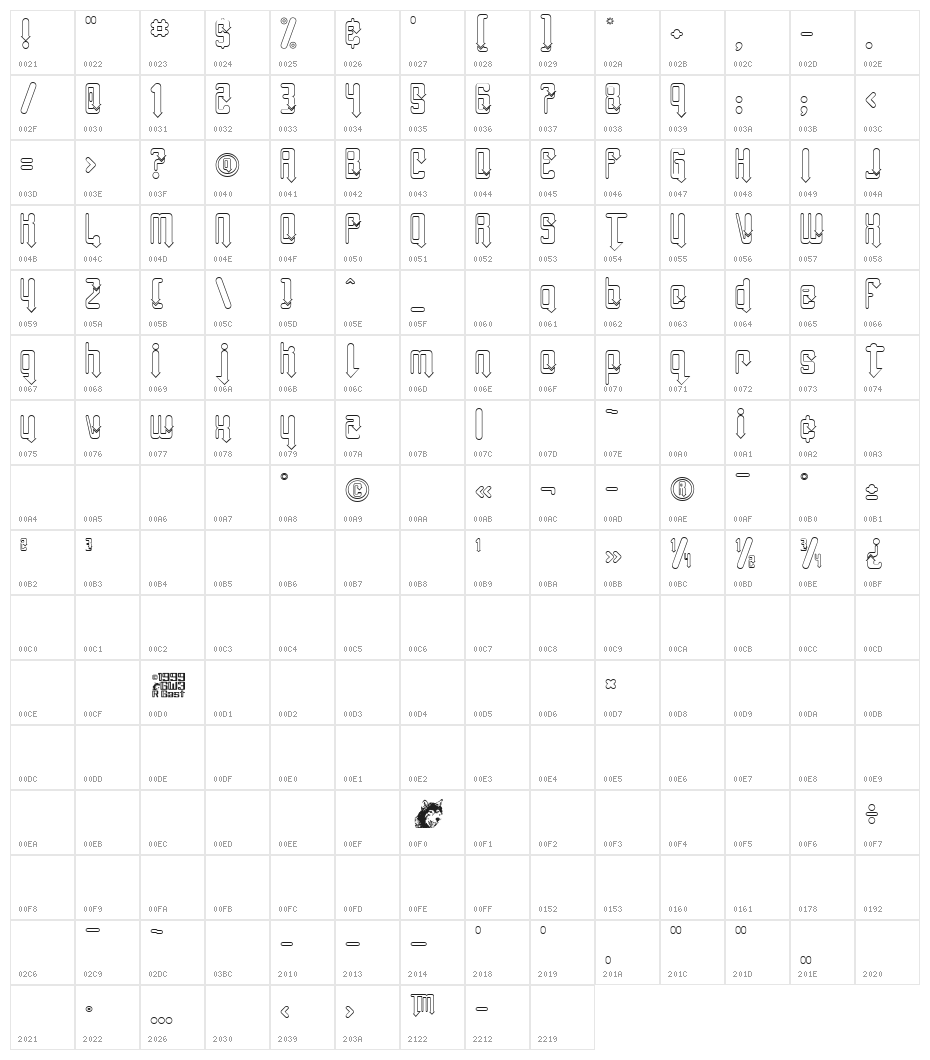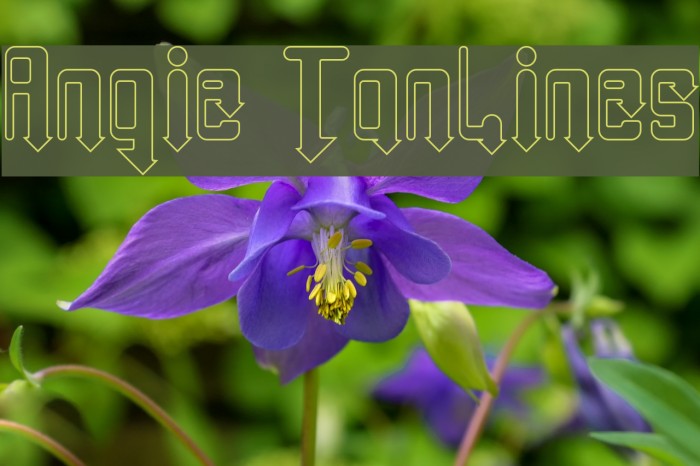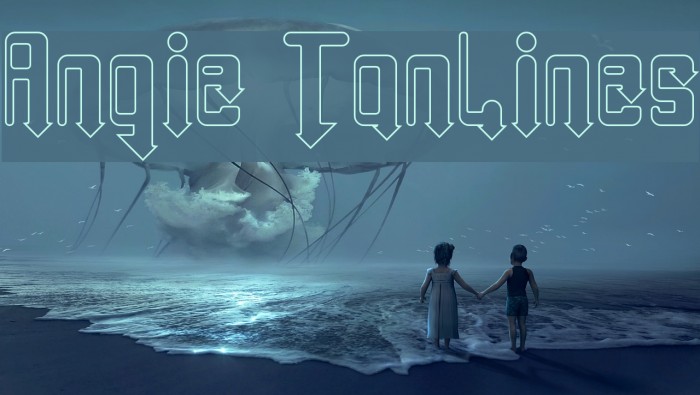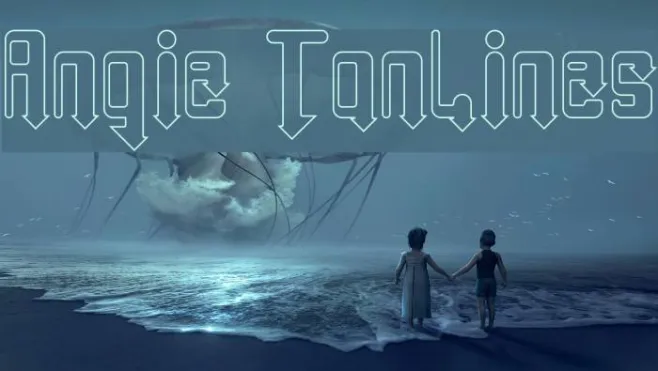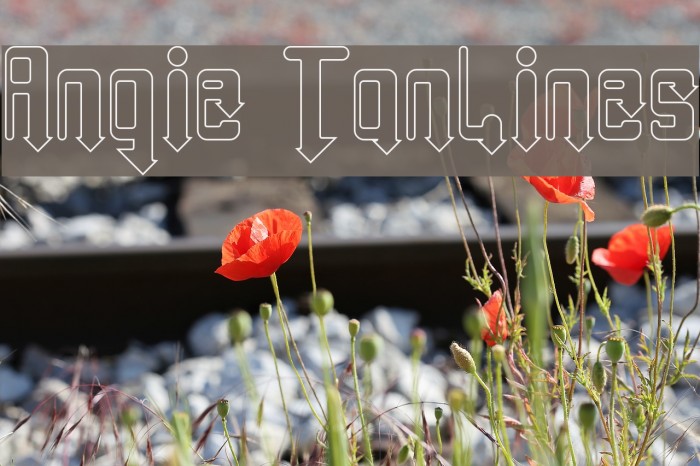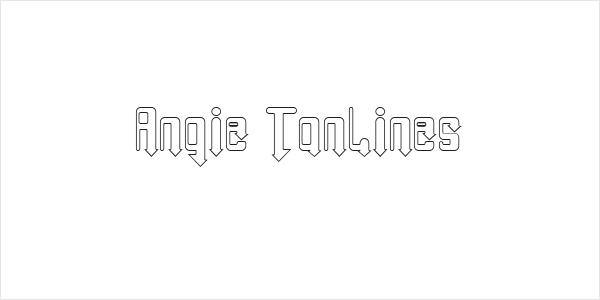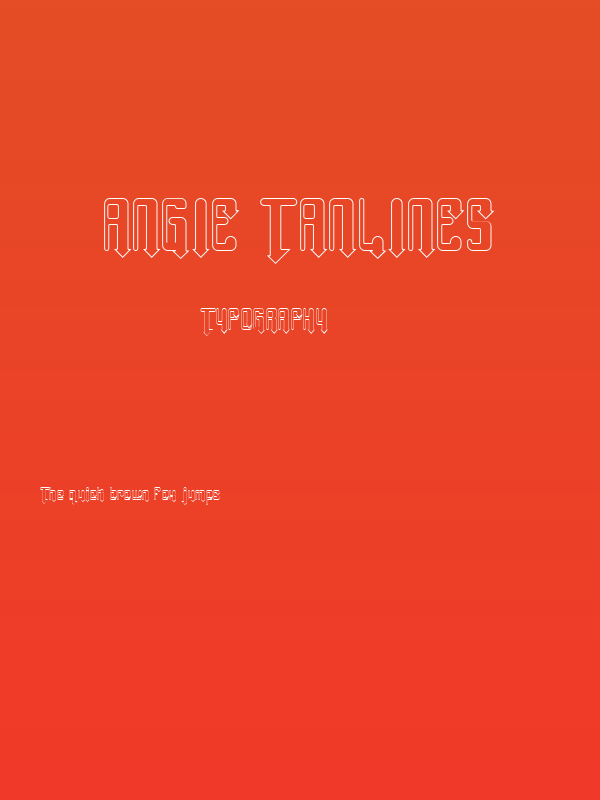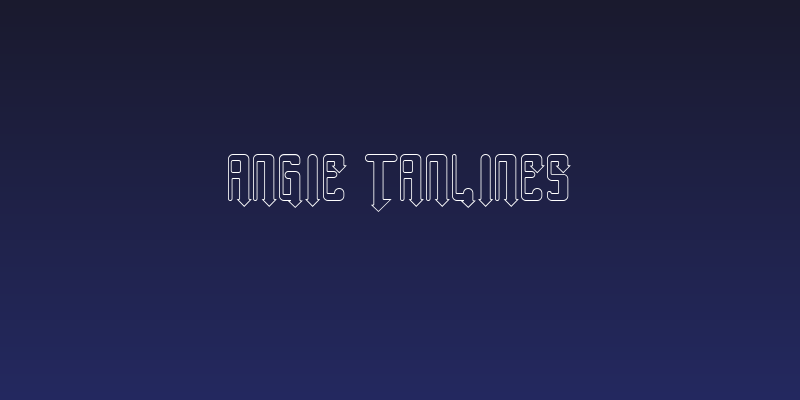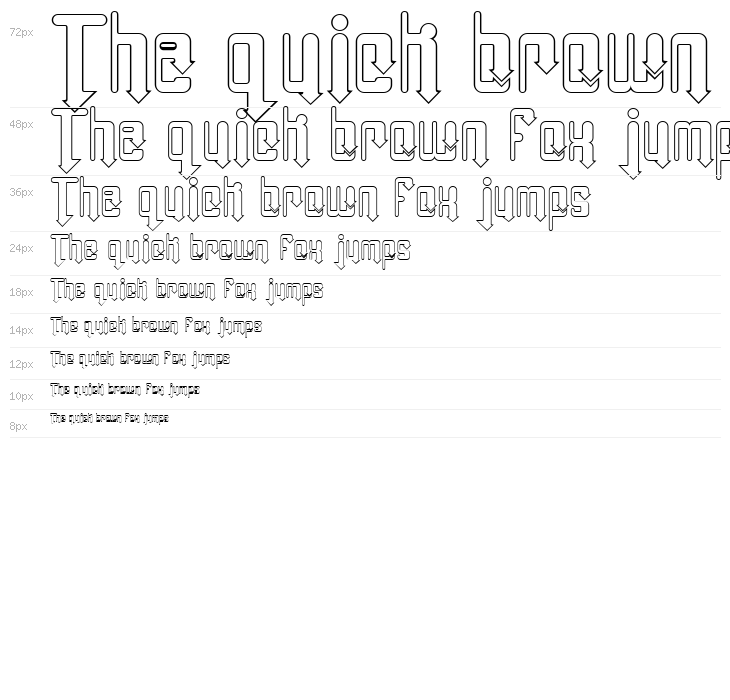
Angie TanLines Font
Angie TanLines Description
This font features a unique and playful design with an outline style that incorporates arrow-like elements at the ends of each character. The geometric shapes and sharp angles give it a modern and edgy appearance. The uppercase and lowercase letters maintain a consistent style, while the numerals and special characters follow the same design principles, ensuring uniformity across all glyphs. The font's distinctiveness makes it stand out, with each character having a bold presence due to the outlined structure. Its decorative nature is ideal for projects that require a touch of creativity and flair.
| Proposed Projects | Ideal for creative projects such as posters, logos, and branding materials that require a bold and distinctive look. |